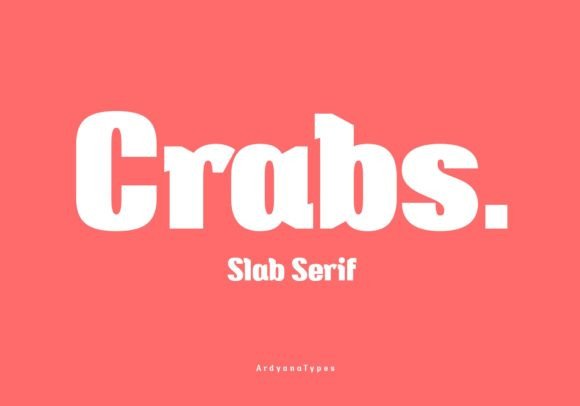
Take a voyage into the realm of fonts, where the extraordinary allure of "Crabs" awaits. A mesmerizing blend of vintage aesthetics and modern ingenuity, Crabs captures the essence of elegance, lending a timeless grace to your creative endeavors. Its slab serif design evokes a sense of nostalgia, reminiscent of eras gone by, while its sleek lines and innovative details propel it into the future.
Adorned with multiple languages, Crabs embarks on a global journey, transcending linguistic boundaries and embracing diversity. Whether you're crafting sports posters that pulse with energy, designing logos that exude professionalism, or weaving your own unique branding tapestry, Crabs stands as your steadfast companion, effortlessly adapting to your vision.
Picture the sheer brilliance of "Crabs" in your next masterpiece. Its exquisitely crafted characters dance across the page, captivating your audience with their charm and sophistication. Invite your readers into a world of wonder, where every word carries the weight of history and the allure of the future.
Embrace the allure of "Crabs." Dive into its depths and discover the boundless possibilities that await. Let your creativity soar as you harness the power of this font, leaving an unforgettable impression on all who behold it.